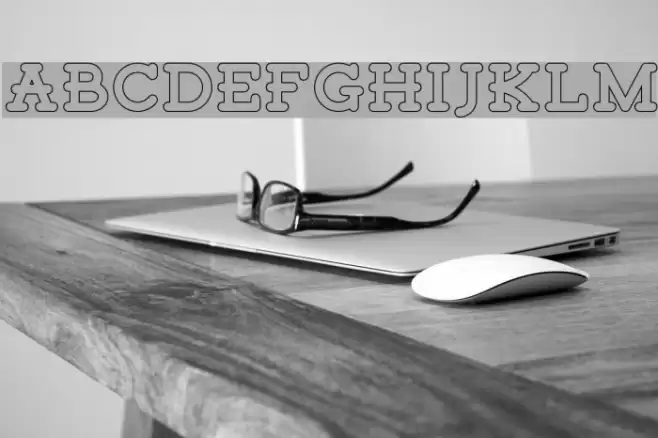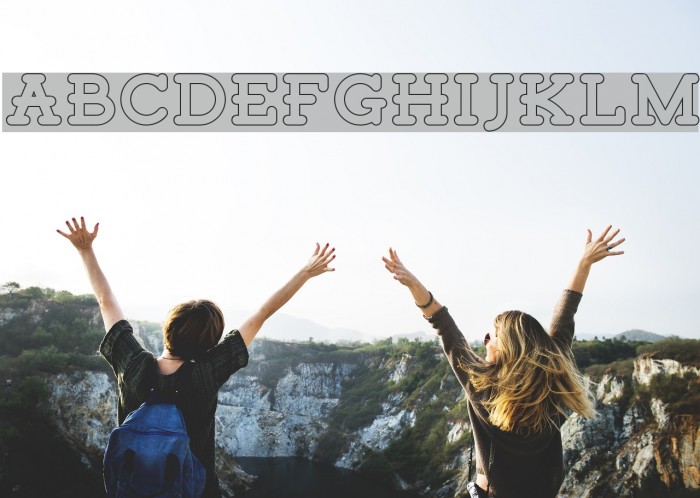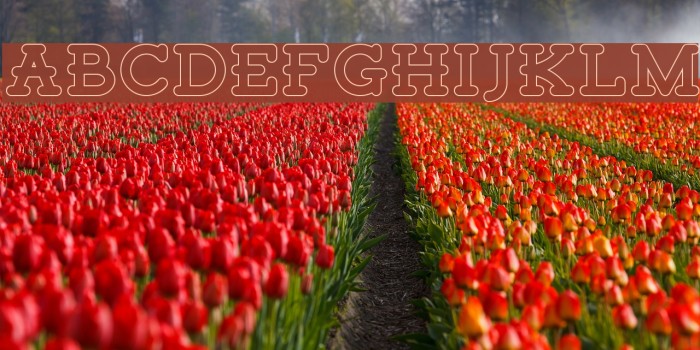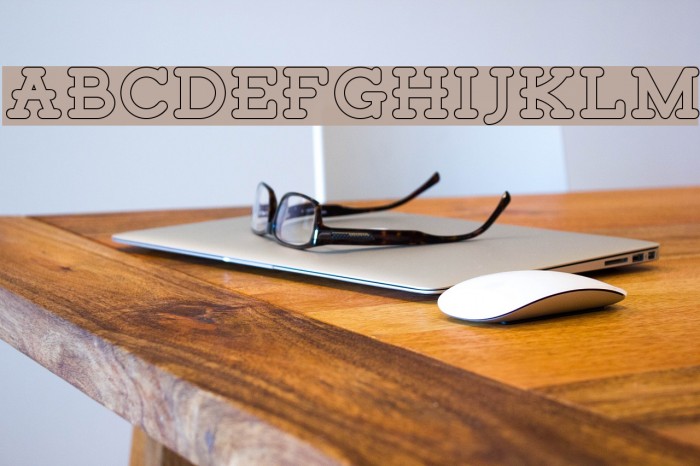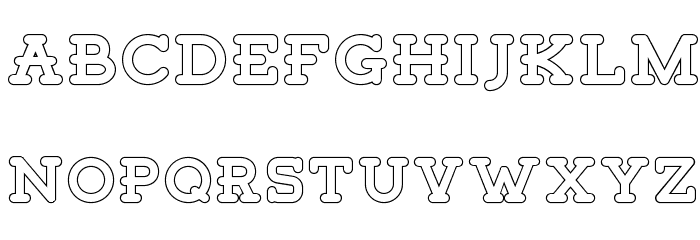
TigrealFree-Outline Font
TigrealFree-Outline Description
This font features a bold, outlined style that gives it a strong and impactful appearance. The uppercase letters are consistent in height and width, creating a uniform look across the alphabet. The outlines are clean and precise, adding a modern touch to the classic serif structure. The font lacks lowercase letters and numbers, focusing solely on uppercase characters. Its geometric shapes and clear lines make it suitable for display purposes where readability and a striking visual are important. The absence of filled-in areas within the letters emphasizes the outline, making it ideal for designs that require a bold statement without overwhelming the viewer.
A bold, outlined serif font with a modern and impactful design from Uncategorized fonts.
- Proposed Projects: Ideal for headlines, posters, logos, and branding materials where a strong visual impact is desired.